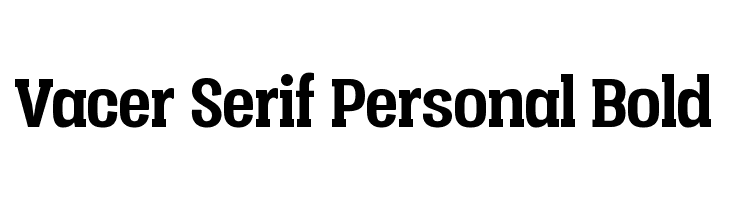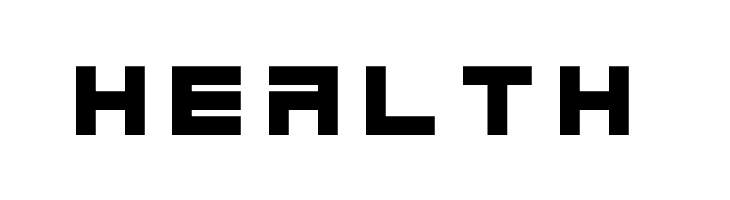
A bold serif font with strong vertical lines and thick serifs, exuding authority and tradition.
A bold, distressed font with a vintage, rugged appearance.
A classic serif font with elegant curves and flared ends.
A bold, geometric font with sharp angles and a futuristic style.
A tall, narrow font with a bold, modern appearance and tight spacing.
A modern, ultra-condensed font with tall, narrow characters and consistent stroke width.
A casual, handwritten font with a personal and informal style.